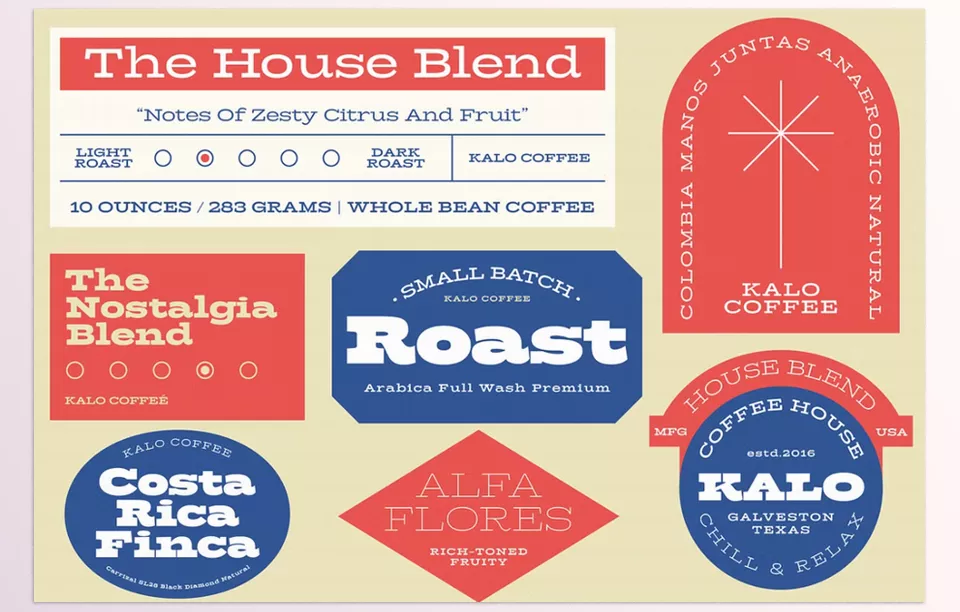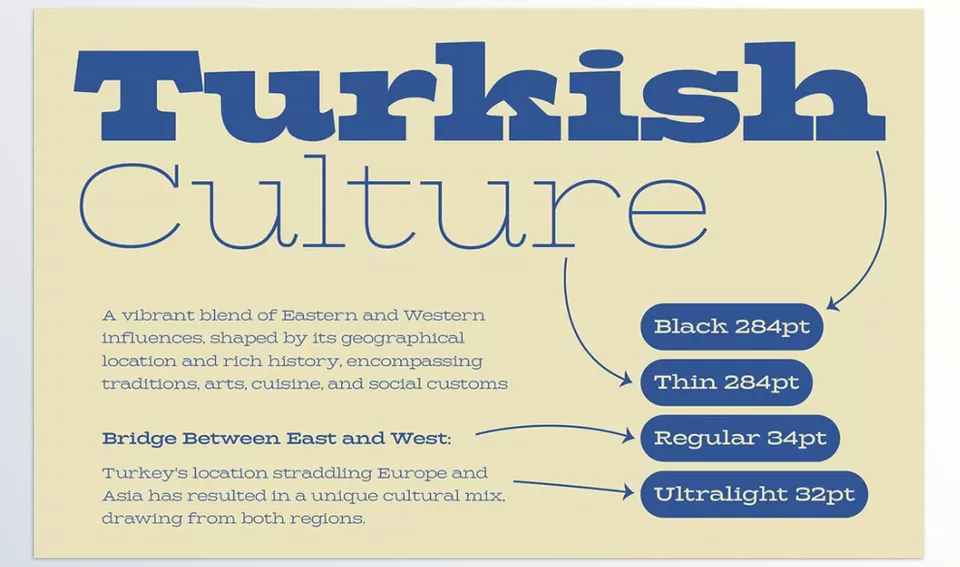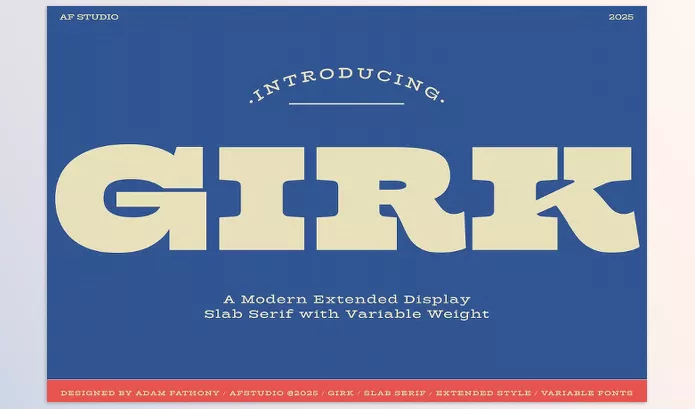
Creative Market – Girk Variable Slab Serif is a powerful bold typeface with an unabashedly modern flair on the classic slab serif. With its width and boldness, Girk creates powerful headlines, modern brand identities and striking packaging. Its vintage feels and new age adds to versatile creative designs.
Image 1: Make every word a statement with bold, extended character.
Image 2: Where retro charm meets modern precision in every curve.